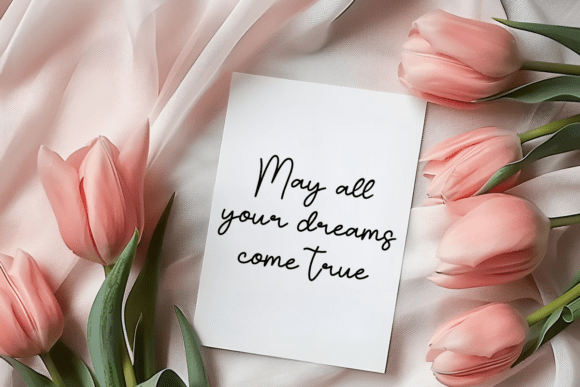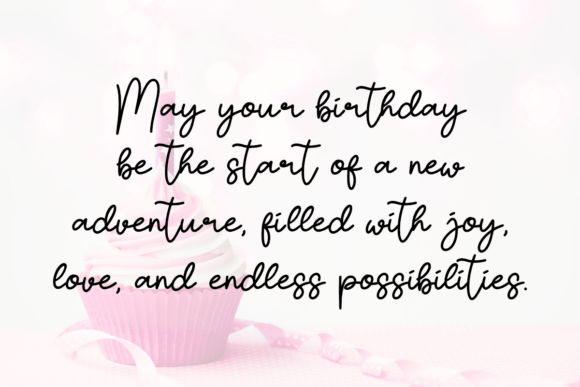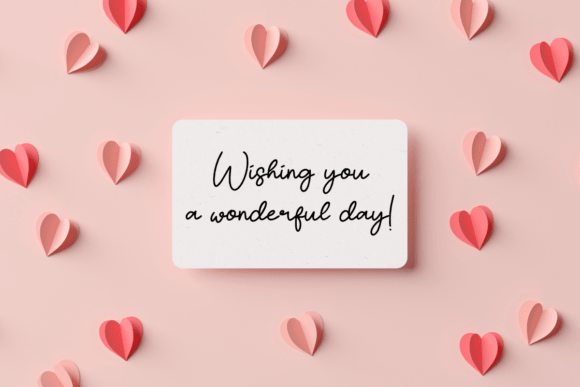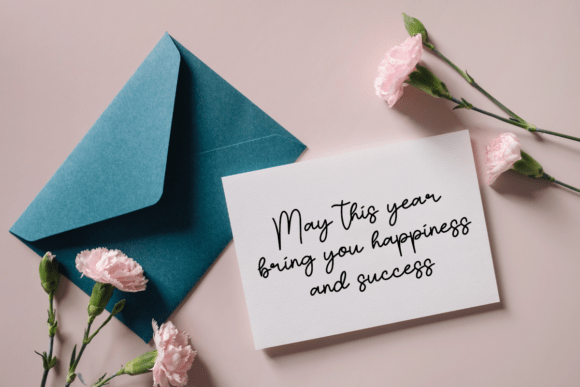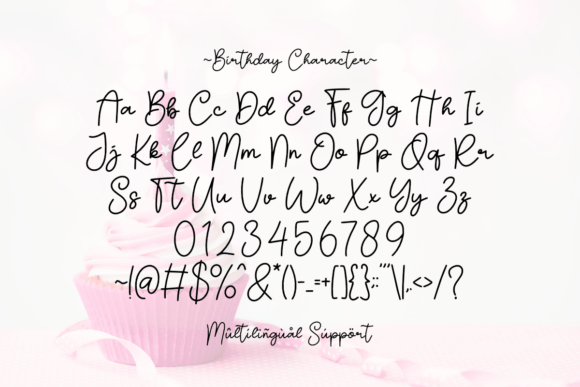
Introducing Birthday Font: The Sweet and Elegant Handwritten Font for Your Design Needs
Are you looking for a font that can add a touch of elegance and romance to your designs? Look no further than Birthday Font, a sweet and cursive handwritten font that’s perfect for a variety of design projects. In this article, we’ll explore the features and benefits of Birthday Font, and show you how it can elevate your designs to the next level.
What is Birthday Font?
Birthday Font is a beautiful, handwritten font that’s designed to add a touch of whimsy and romance to your designs. Its gentle, cursive curves make it perfect for creating elegant and sophisticated designs that are sure to impress. Whether you’re working on a branding project, a wedding invitation, or a greeting card, Birthday Font is the perfect choice.
- Sweet and Cursive Handwritten Style: Birthday Font features a beautiful, handwritten style that’s both sweet and elegant. Its cursive curves make it perfect for creating flowing, organic designs that are sure to capture your audience’s attention.
- Versatile and Flexible: Birthday Font is incredibly versatile and can be used on a wide range of design projects, from branding and logos to wedding invitations and greeting cards.
- Easy to Read: Despite its elegant and cursive style, Birthday Font is incredibly easy to read, making it perfect for body text and other large blocks of text.
- Fancy and Elegant but Still Casual: Birthday Font strikes the perfect balance between elegance and casualness, making it perfect for designs that need to look sophisticated but still approachable.
Use Cases for Birthday Font
So, what can you use Birthday Font for? The possibilities are endless! Here are a few ideas to get you started:
- Branding and Logos: Use Birthday Font to create a beautiful and elegant logo that will help your brand stand out from the crowd.
- Wedding Invitations and Stationery: Birthday Font is perfect for creating romantic and elegant wedding invitations, stationery, and other wedding-related designs.
- Greeting Cards: Add a touch of elegance and romance to your greeting cards with Birthday Font.
- Fashion and Lookbooks: Use Birthday Font to create beautiful and stylish lookbooks and fashion designs that are sure to impress.
- Marketing and Promotion: Birthday Font is perfect for creating eye-catching marketing materials, such as brochures, flyers, and posters.
Tips for Using Birthday Font
Here are a few tips for getting the most out of Birthday Font:
- Use it Sparingly: While Birthday Font is beautiful and elegant, it can be overwhelming if used too much. Use it sparingly to create a sense of drama and impact.
- Pair it with Other Fonts: Birthday Font pairs beautifully with other fonts, so don’t be afraid to experiment with different combinations.
- Experiment with Colors: Birthday Font looks beautiful in a range of colors, so don’t be afraid to experiment and find the perfect color scheme for your design.
In conclusion, Birthday Font is a beautiful and elegant handwritten font that’s perfect for a wide range of design projects. Its sweet and cursive style makes it perfect for adding a touch of romance and whimsy to your designs, while its versatility and flexibility make it perfect for use on a variety of projects. Whether you’re a designer, crafter, or DIY enthusiast, Birthday Font is sure to become a favorite in your font collection.